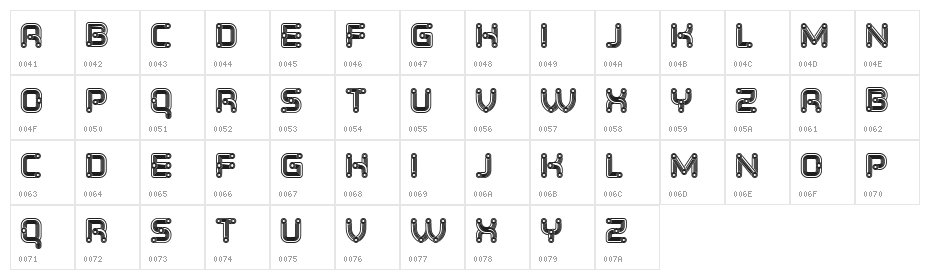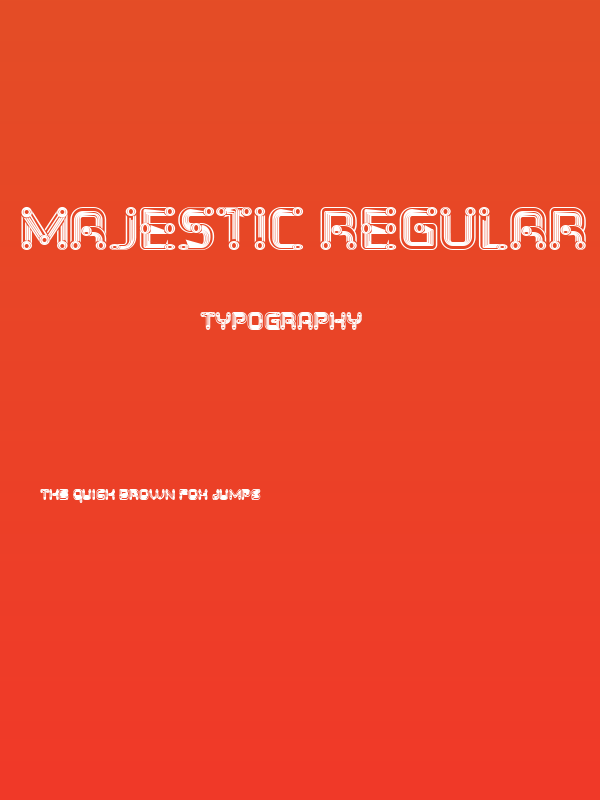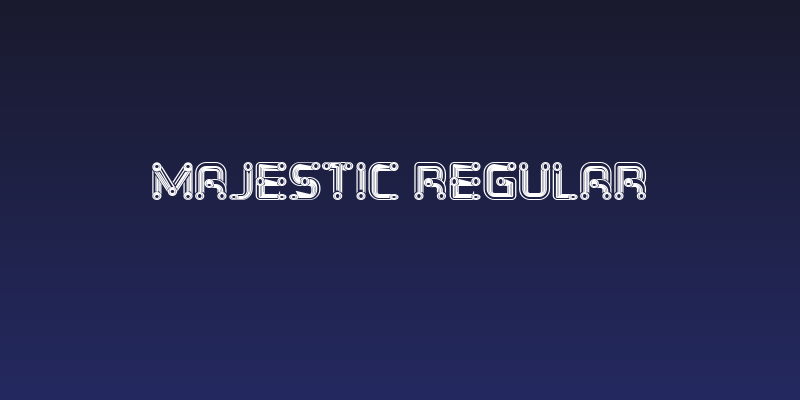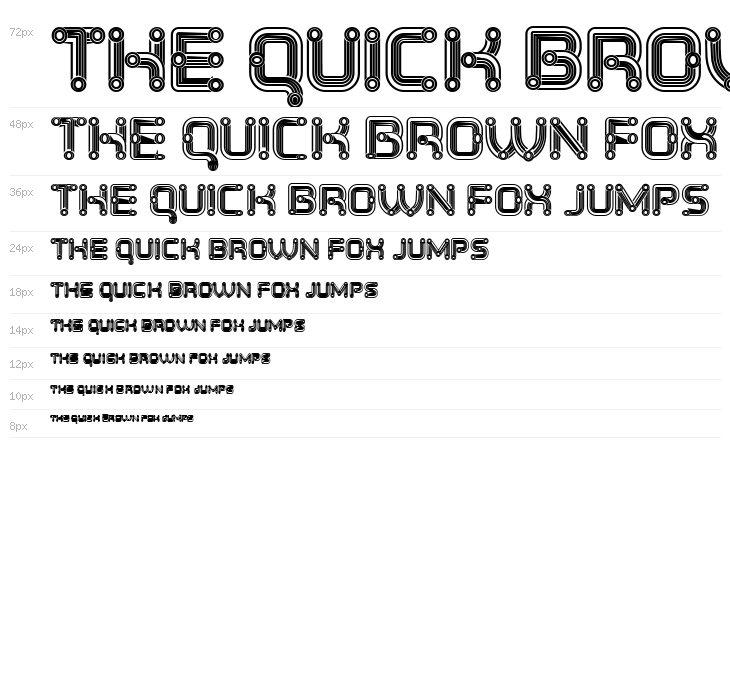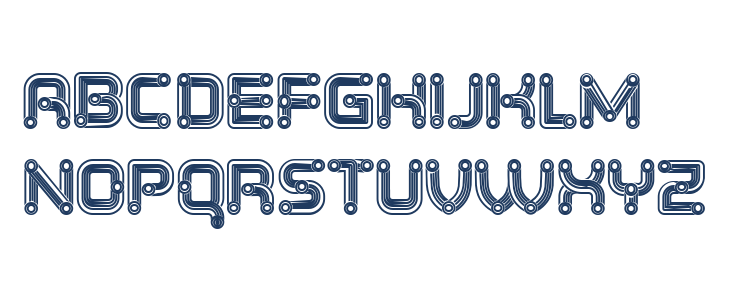
Majestic Regular Font
Majestic Regular Description
This font features a unique and intricate design, characterized by its bold, geometric shapes and multiple parallel lines that create a layered effect. The letters are constructed with a series of concentric outlines, giving them a three-dimensional appearance. Small circular accents are strategically placed at the ends of strokes, adding a decorative touch. The overall look is modern and futuristic, with a hint of industrial style. The font maintains a consistent width across all characters, ensuring uniformity and balance. Its distinct style makes it ideal for eye-catching designs.
| Overall Style | Modern, Futuristic, Industrial |
| Proposed Projects | This font is perfect for futuristic branding, tech-related projects, posters, and digital media that require a standout, modern aesthetic. |